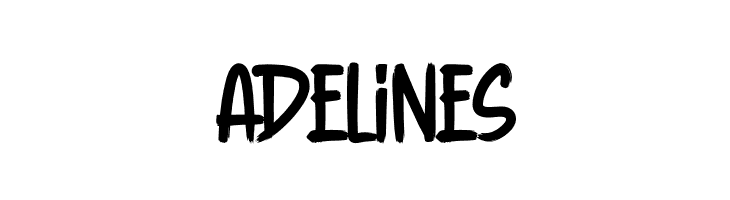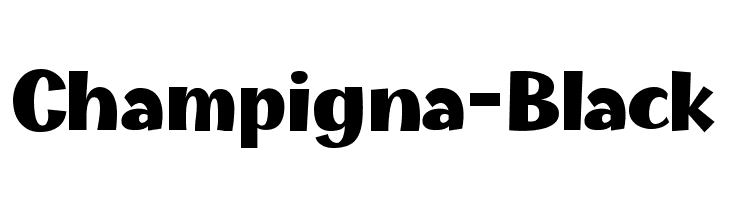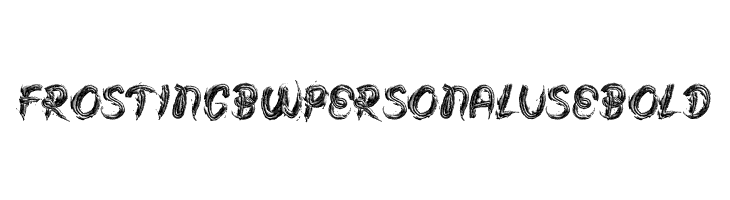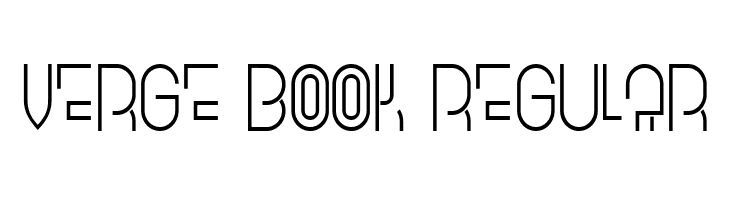
A modern, geometric font with a futuristic and minimalist design.
A decorative and artistic font with intricate, calligraphic letterforms.
A modern, high-contrast font with sleek, elegant lines and geometric structure.
A bold, geometric font with a gradient effect created by horizontal lines.
A bold, brushstroke font with a dynamic and artistic style.
A flowing, elegant script font with a modern, handwritten style.
A bold, playful font with rounded characters and a modern, dynamic style.
A bold, outlined dingbat font of department store-themed icons.
A futuristic italic font with sharp, geometric lines and a sleek, modern design.
A bold, hand-drawn font with a dynamic and energetic style.